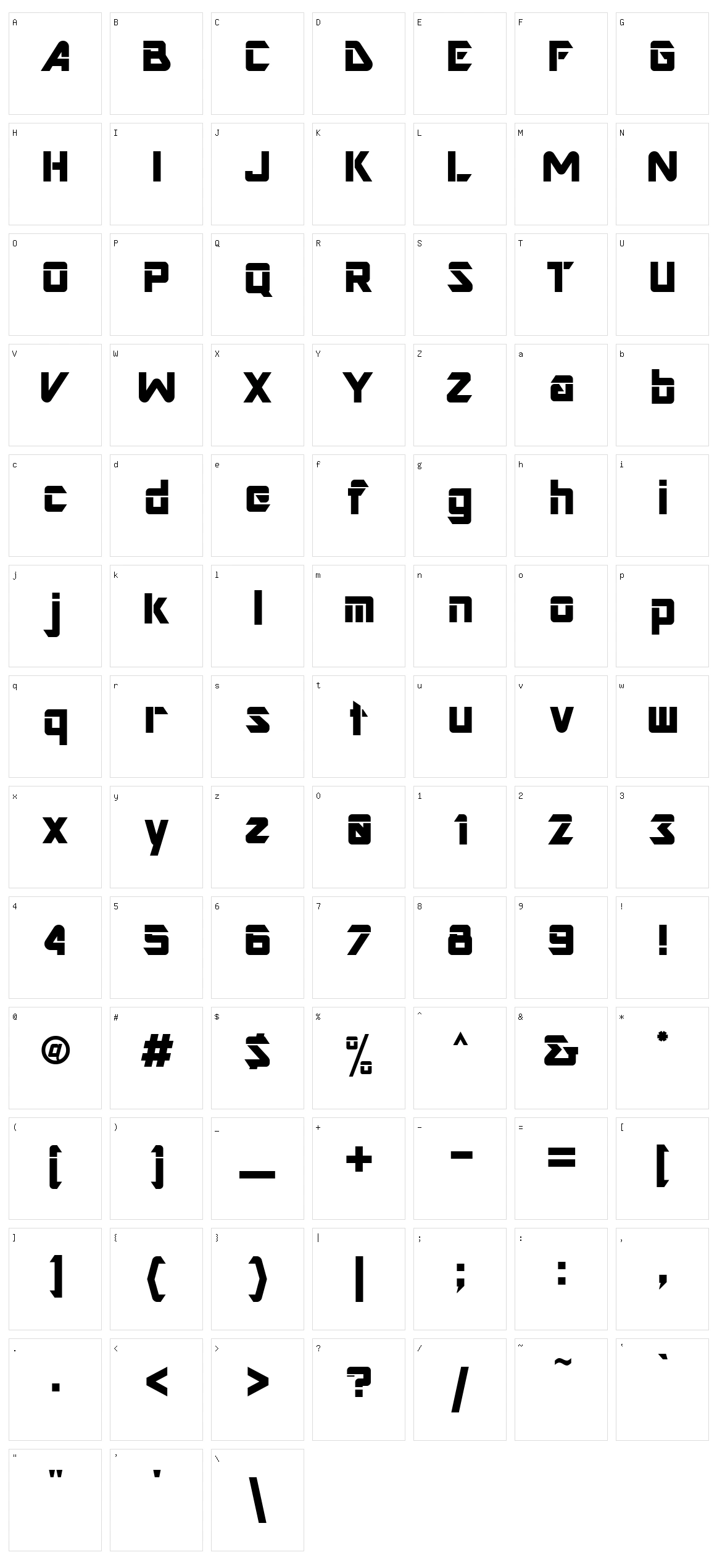
Gravicon Display
Gravicon Display is a heavy weight modern font, based on a stencil theme,
fairly futuristic looking - think of those sci-fi wall stencils in film and
TV productions. It is very compact, and is best used a larger point sizes.
It has a full character set, a few dead characters, a set of symbols, and
a few alternate characters (option-character). The two alternate
characters are A and V.